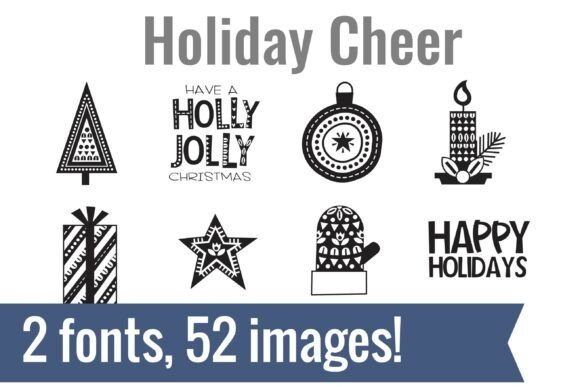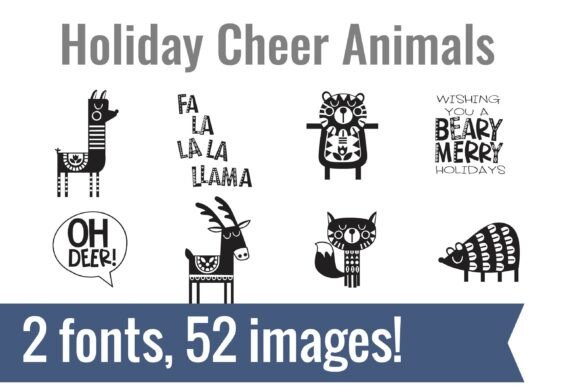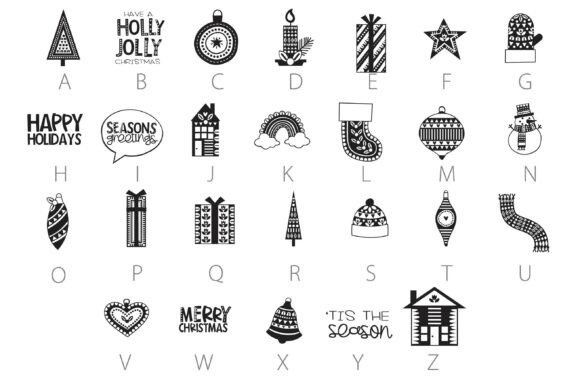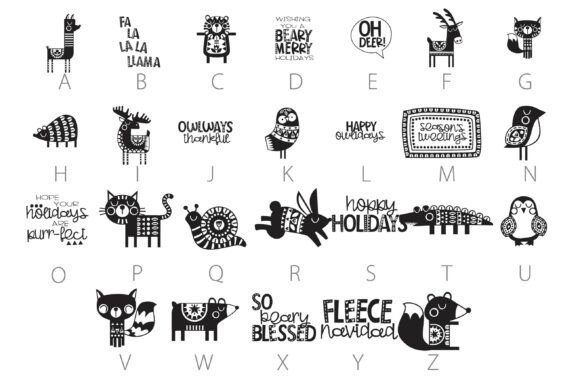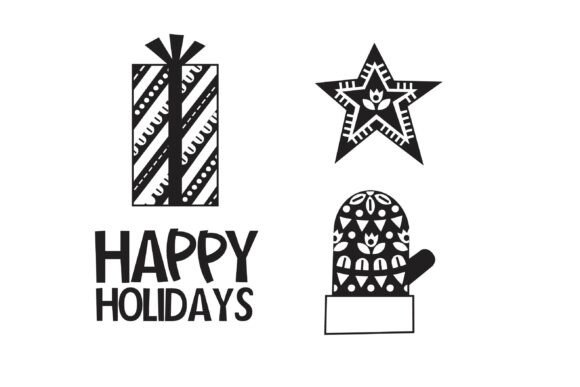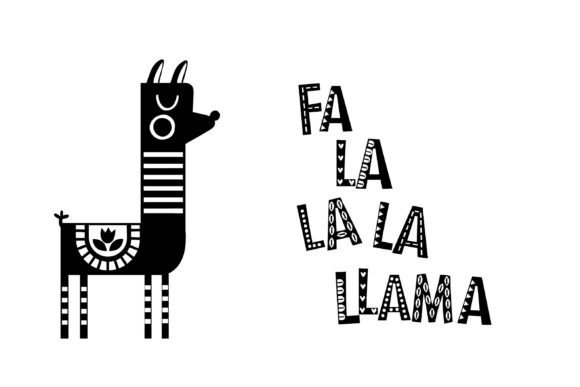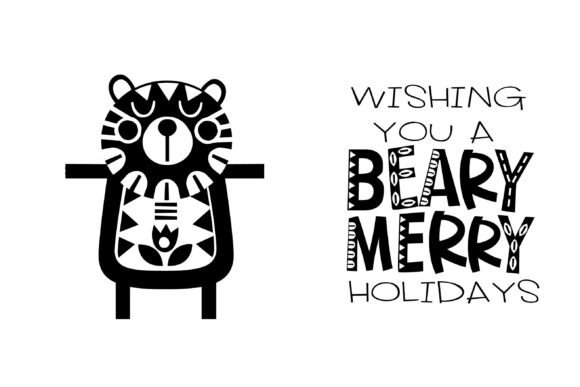
Unlock the Magic of Holiday Cheer Dingbats Font
As the snowflakes start to fall and the festive lights twinkle, many of us find ourselves swept up in the excitement of the holiday season. We spend hours pouring over our favorite holiday movies, baking sweet treats, and crafting special gifts for our loved ones. But have you ever felt like your holiday projects could use a little extra something – a dash of whimsy, a pinch of personality, and a whole lot of cheer?
That’s where the Holiday Cheer Dingbats Font comes in – a delightful bundle of two perfectly coordinated fonts that capture the classic, graphic spirit of the Christmas season. With 52 bold and stylish glyphs to choose from, you’ll be able to add a touch of magic to all your holiday projects, from cohesive branding to handmade decorations and cheerful social media posts.
As a designer, you know how valuable a versatile and upbeat font set can be. The Holiday Cheer Dingbats Font is the perfect resource for adding a dash of holiday cheer to your designs, and its folk-art-inspired pattern gives it a unique, handcrafted feel that’s both modern and timeless.
Holiday Cheer Dingbats Font Key Features
- Font Type: Dingbats and Symbol Font
- Perfect for adding festive and holiday-themed graphics to your designs
- Unique Characteristics: Holiday-themed symbols and dingbats, including snowflakes, Christmas trees, and holly leaves
- Perfect for creating festive and seasonal designs
Holiday Cheer Dingbats Font Review
I’ve had the chance to work with the Holiday Cheer Dingbats Font, and I must say it’s a unique addition to any designer’s toolkit. ✨ Here are some things that really stand out:
- Festive vibe: This font perfectly captures the essence of the holiday season with its cheerful, playful design.
- Customization options: The font offers a range of styles and variations that can be used to create a cohesive brand look.
- Fun illustrations: The dingbats included in the font add an extra layer of visual interest to any design project.
- Limited legibility: Some characters may be difficult to read, especially in smaller font sizes.
- Lack of international support: The font may not be compatible with non-English languages or character sets.
- Overuse risk: The font’s festive design may become overwhelming if used excessively.
Overall, I think the Holiday Cheer Dingbats Font is a great choice for designers looking to add some holiday cheer to their projects. Just be mindful of the limitations and use it in moderation. With a little creativity, this font can help create some truly unique and eye-catching designs.
The Holiday Cheer Dingbats Font is perfect for:
Christmas and New Year’s cards
Holiday party invitations
Seasonal social media posts
Festive gift tags and wrapping paper
Winter-themed newsletters and brochures